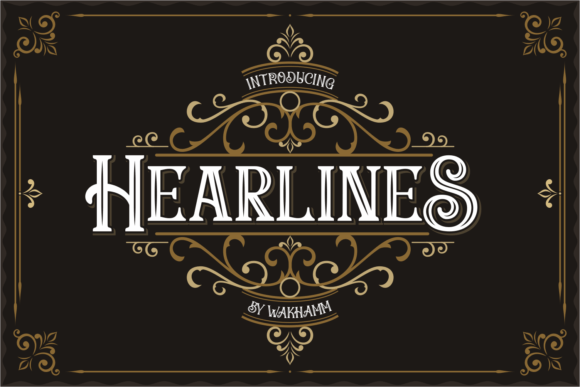
Introducing Hearlines Font, the perfect choice for anyone looking to add a touch of vintage elegance to their design projects. Created by the talented Wakhamm from 7NTypes, this font is a must-have for those seeking to convey a sense of tradition and timelessness.
With its vintage appeal, Hearlines Font is the ideal choice for a wide range of design projects. Whether you're creating invitations, wedding stationery, or branding materials, this font will instantly elevate your work, adding a touch of sophistication and refinement.
One of the key features that sets Hearlines Font apart is its versatility. It can be used sparingly for headings, allowing them to stand out and grab attention, or it can be used throughout an entire project to maintain a consistent vintage aesthetic. No matter how you choose to use it, this font effortlessly brings a sense of class and elegance to any composition.
Captivating and eye-catching, Hearlines Font is guaranteed to leave a lasting impression on your audience. Its unique style and intricate details make it a standout choice for those looking to make a statement. Whether you're designing for a gym, a boutique, or any other business, this font will help you create a strong and memorable visual identity.
But Hearlines Font isn't just about aesthetics. It's also designed with functionality in mind. Its legibility ensures that your message is easily understood, while its carefully crafted letterforms add a touch of personality and charm. This font truly combines the best of both worlds, making it a valuable asset for any designer or business owner.
When you choose Hearlines Font, you're not just getting a beautiful typeface – you're also gaining access to a world of creative possibilities. Let your imagination run wild as you explore the endless design options this font offers. Its timeless appeal makes it perfect for both modern and vintage-inspired projects, allowing you to create stunning visuals that stand the test of time.